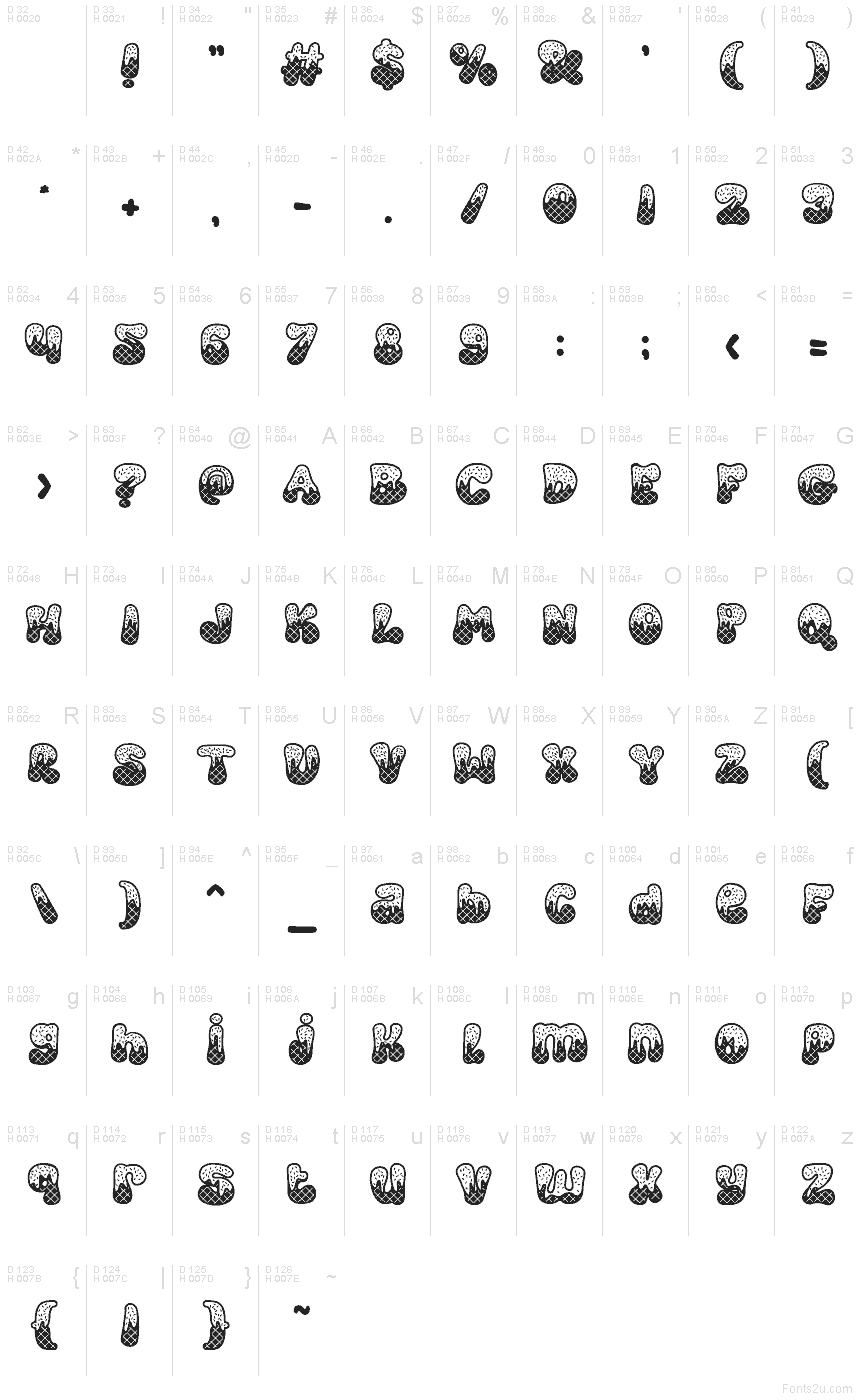
Cold Snowflake One
Cold Snowflake One font by PutraCetol Studio is whimsical and decorative with a vintage-inspired look. The bold cartoon display letters combine intricate detailing and textured interior patterns while presenting an extra decorative flair that guarantees to catch the eye at first glance.
This free display typeface stands out in headlines, product packaging, single-word designs, and magazine covers. Use it for mugs, books, greeting cards, social media posts as well as other body-texts for a standout stylish appearance.